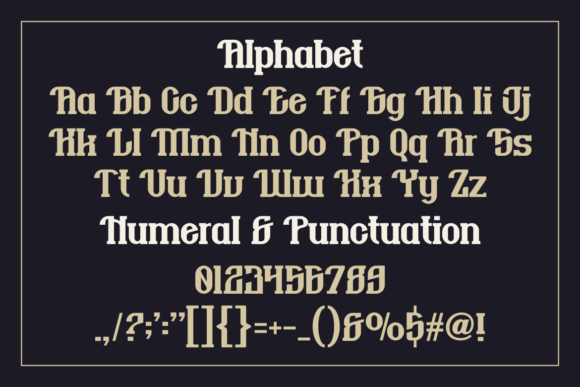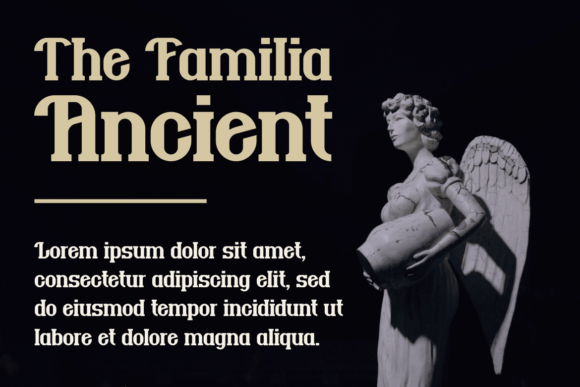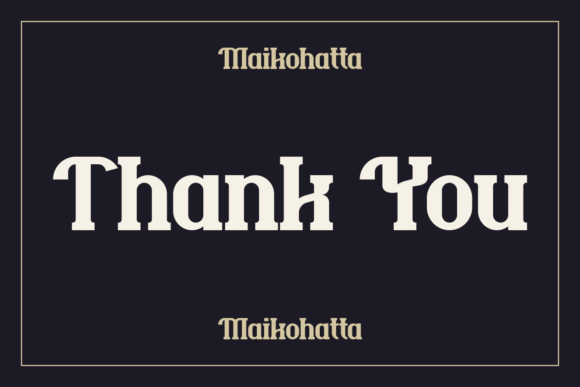
Introduction to Nordstrom Font
Have you ever been working on a creative project, pouring your heart and soul into it, and then, suddenly, the perfect font comes along and makes it all pop? That’s exactly what happened to many designers when they discovered the Nordstrom Font.
This cool and unique serif font is a design resource that can elevate any project, from a sleek business card to a stunning website design. With its high-quality aesthetic, the Nordstrom Font is a valuable addition to any designer’s toolkit. Whether you’re working on a free download or a paid project, this font is sure to impress.
In this article, we’ll delve into the world of the Nordstrom Font and explore its many uses and benefits. From transparent backgrounds to intricate designs, we’ll show you why this font is a must-have for any designer looking to take their work to the next level.
Nordstrom Font Key Features
- High-quality font with a transparent background, ideal for creative projects and designs.
- Features a unique, modern design that is perfect for adding a touch of elegance to any project or presentation.
- Designed to be highly legible at various resolutions, from low to high, ensuring optimal display quality.
Honest Review: Nordstrom Font
I recently stumbled upon the Nordstrom Font, and I’m excited to share my thoughts on this design resource. As a designer, I’m always on the lookout for high-quality fonts that can elevate my creative projects.
The Nordstrom Font is available for free download, which is a major plus in my book. I appreciate when designers make their work accessible to everyone. The font itself has a clean and elegant design, making it perfect for a variety of projects, from corporate branding to editorial work.
Here are some things that work well with the Nordstrom Font: ✨
- High-quality design that’s perfect for print and digital projects
- Transparent background, making it easy to use with any design
- Wide range of applications, from branding to publishing
- The font may not be as versatile as some other options, which can limit its use in certain projects
Overall, I’m impressed with the Nordstrom Font. It’s a solid addition to any designer’s toolkit, and its high-quality design makes it a great choice for creative projects. While it may have some limitations, I believe the benefits far outweigh the drawbacks.
Nordstrom Font
To get the most out of the Nordstrom Font, try using it with a transparent background to create a sense of depth and dimension. You can also experiment with different font sizes and styles to create a unique look.
The Nordstrom Font is commonly used in creative projects such as graphic design, branding, and marketing materials. It’s also a great resource for designers who want to create high-quality designs with a touch of elegance.
Alternatives to Nordstrom Font
Montserrat is a geometric sans-serif font that’s great for design projects requiring a high level of sophistication. It’s available for free download and can be used with a transparent background. When to use: Montserrat is perfect for corporate branding, advertising, and other high-end creative projects. It compares to Nordstrom Font in its urban, modern feel, but with a more condensed and structured design.